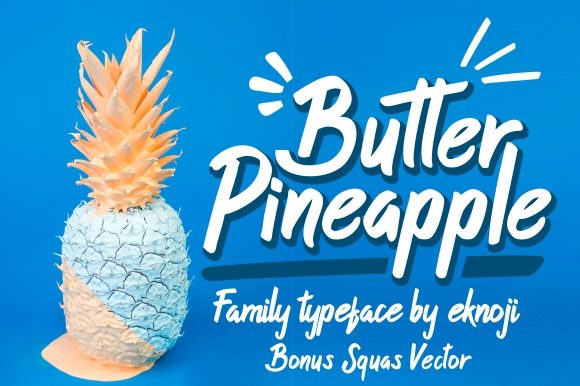
The Butter Pineapple Font: A Fresh and Funky Display Font to Elevate Your Designs
I’ll never forget the design project that led me to discover the Butter Pineapple font. I was working on a branding project for a trendy new cafe, and I was struggling to find the perfect font to capture their playful yet elegant vibe. That’s when I stumbled upon Butter Pineapple, and it instantly became the star of the show. In this article, I’ll share my experience with this charming font, its features, and how to make the most of it in your designs.
• ✨ Fresh and funky vibe that’s perfect for creative projects
• ✅ Authentic yet elegant feel that elevates any design
• 💫 Highly legible and versatile, making it suitable for various design applications
• 🎉 Extensive OpenType features, including glyphs and stylistic alternates
While Butter Pineapple is an amazing font, there are a few things to keep in mind:
• 🤔 Limited use of uppercase letters, which might require creative workarounds
• ⚠️ May not be the best choice for body text due to its display font nature
The Story Behind Butter Pineapple
Butter Pineapple was designed with the goal of creating a fresh and funky display font that radiates charm. The designer aimed to craft a font that feels authentic yet elegant, making it perfect for creative projects. While the exact inspiration behind the font is unclear, it’s evident that the designer poured their heart and soul into creating a unique and captivating typeface.
Font Name Butter Pineapple Font
Author EKNOJI
Q: What makes Butter Pineapple unique?
A: Butter Pineapple’s unique blend of freshness, funkiness, and elegance sets it apart from other fonts.
Q: Is Butter Pineapple suitable for body text?
A: While Butter Pineapple is a beautiful font, it’s primarily designed for display use and may not be the best choice for body text.